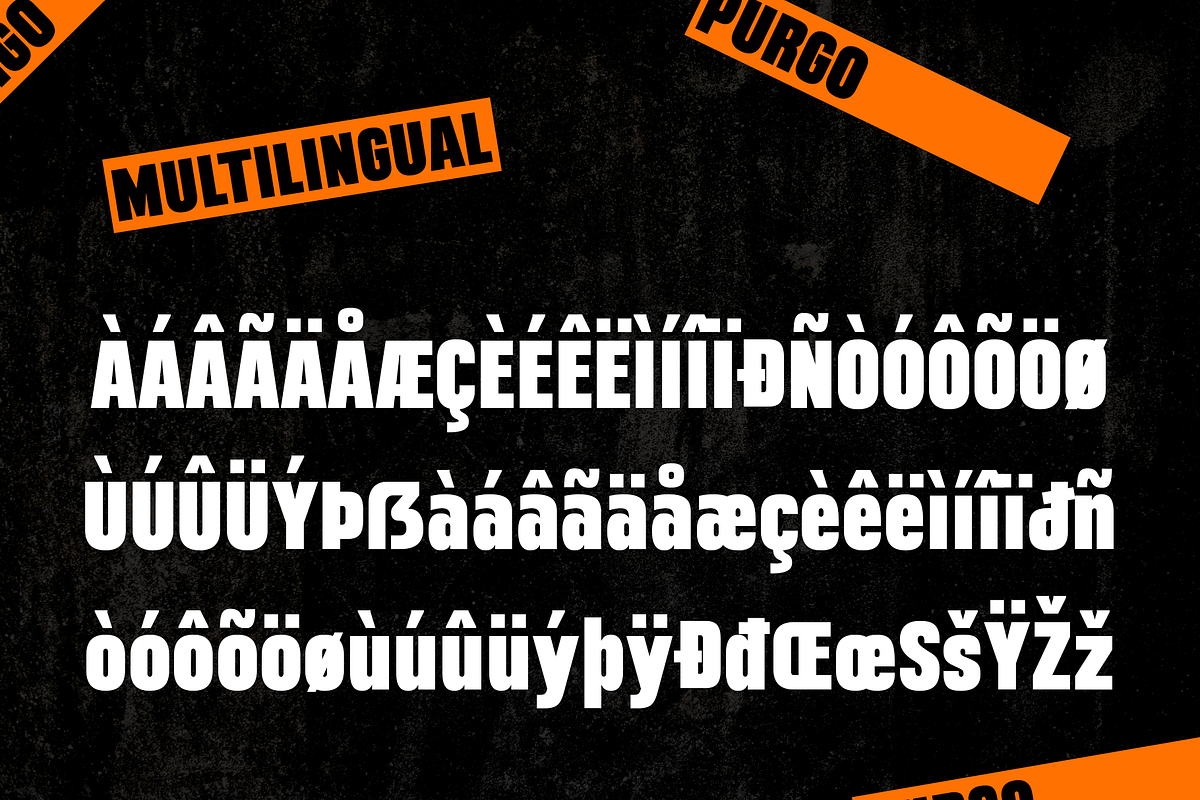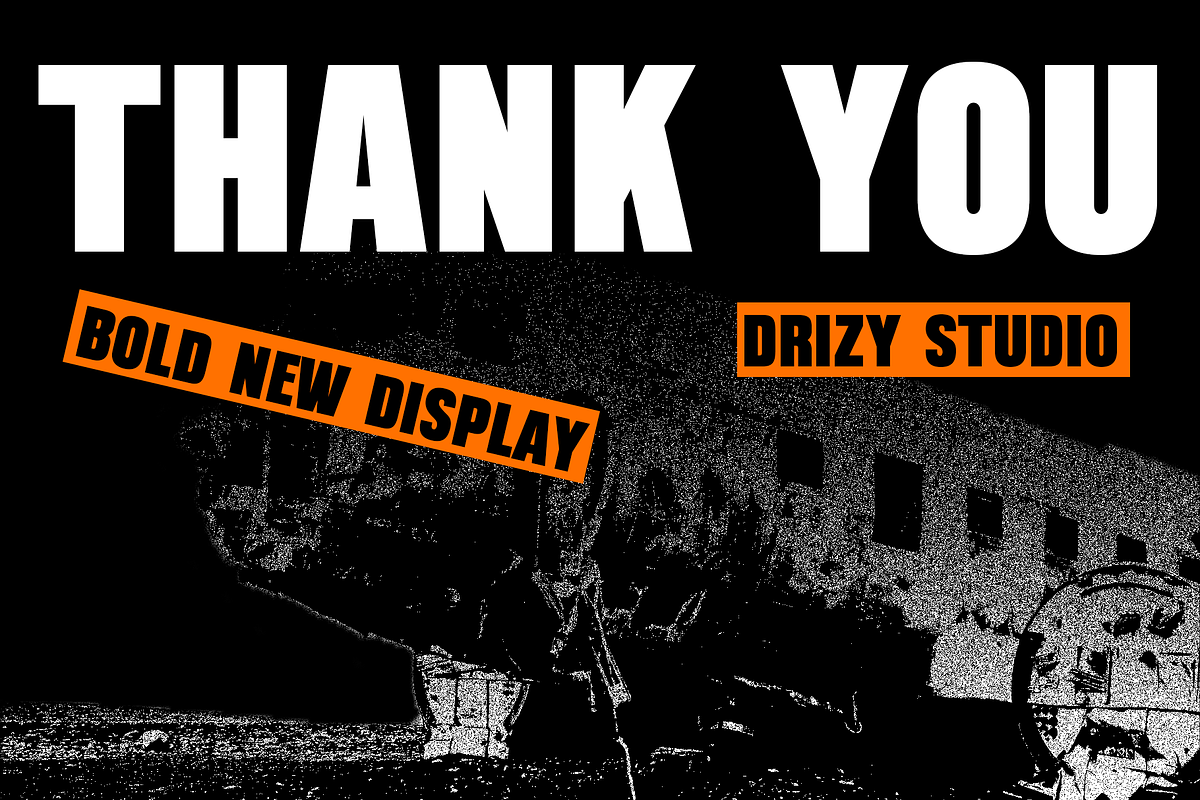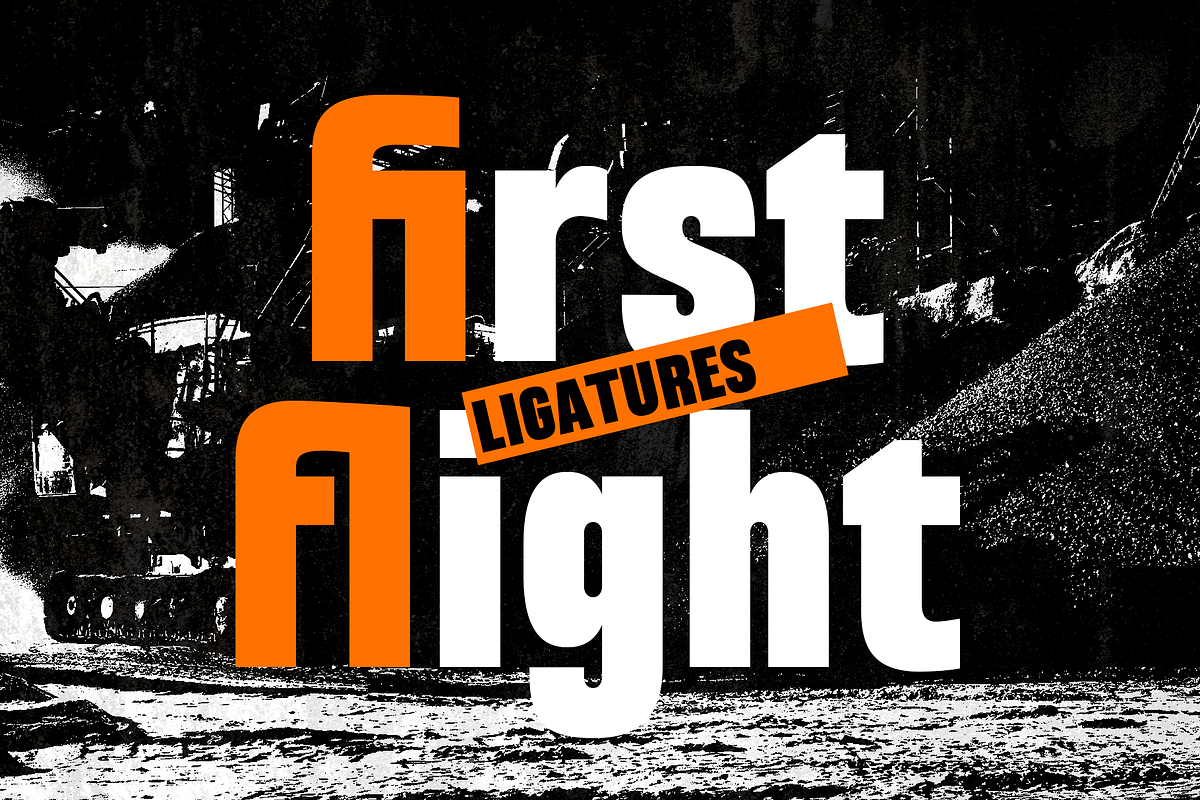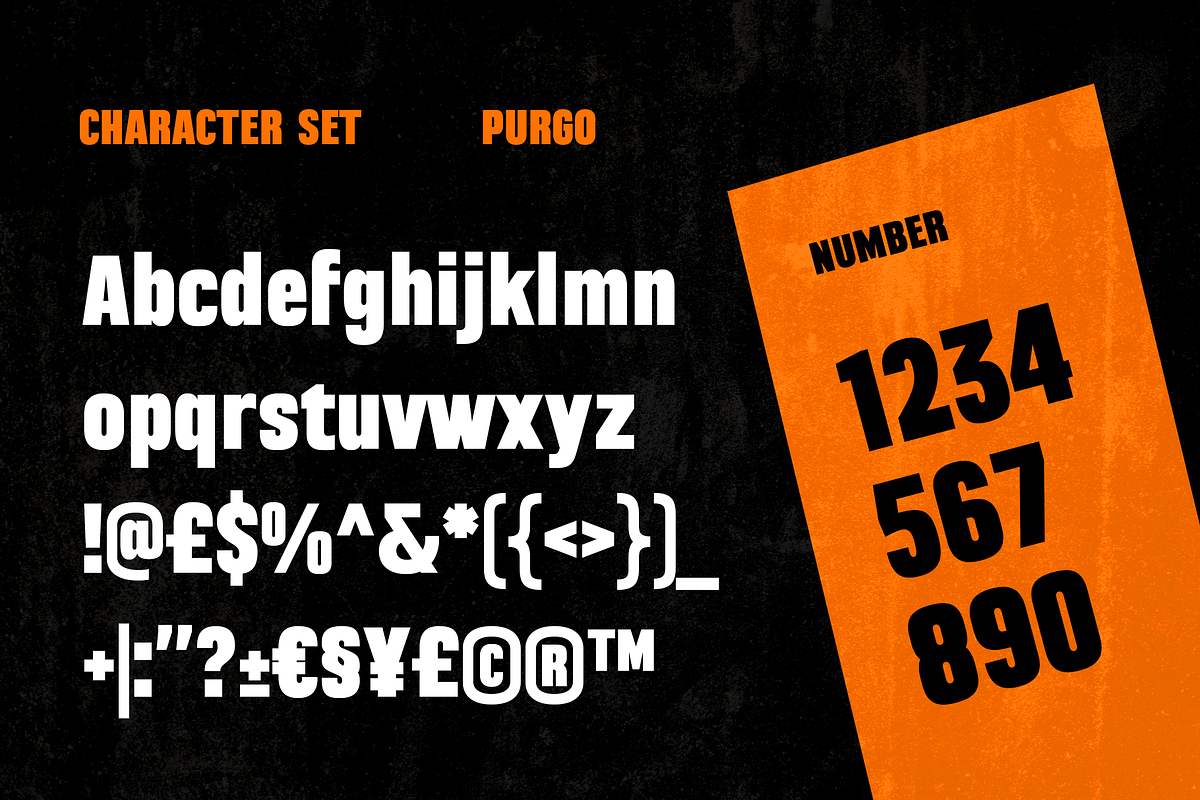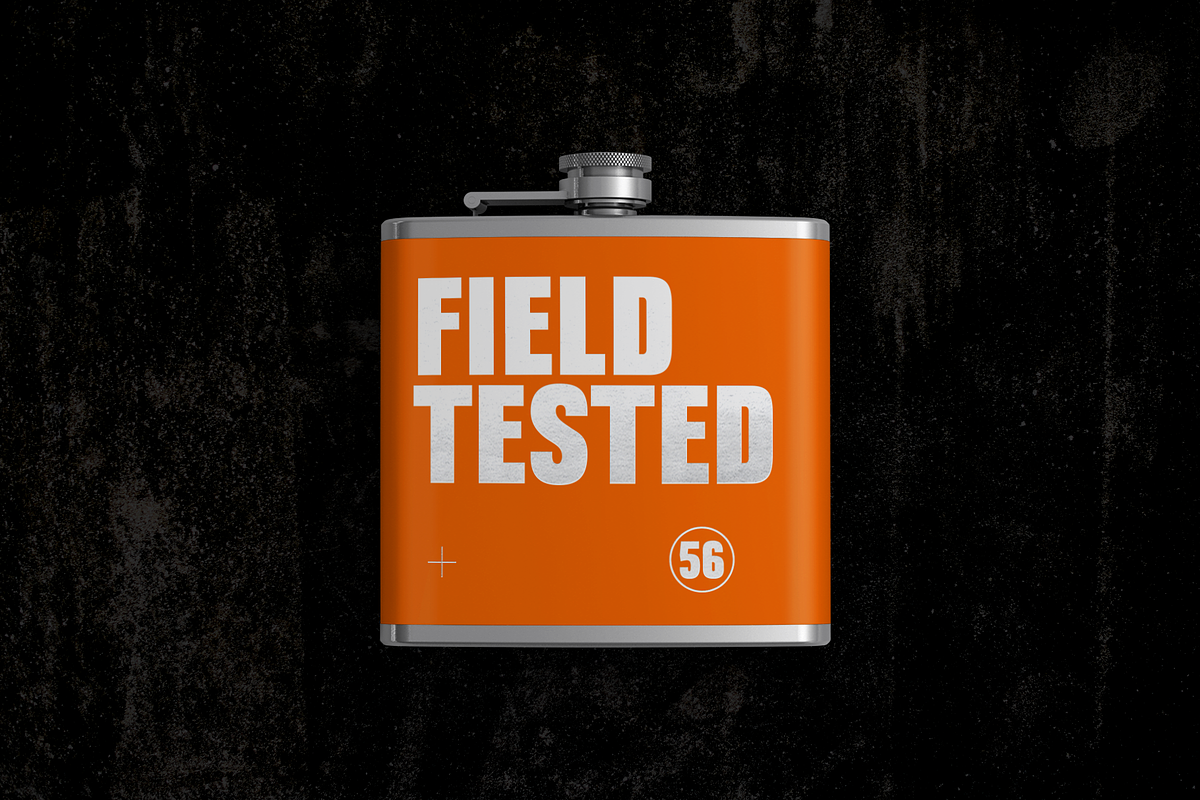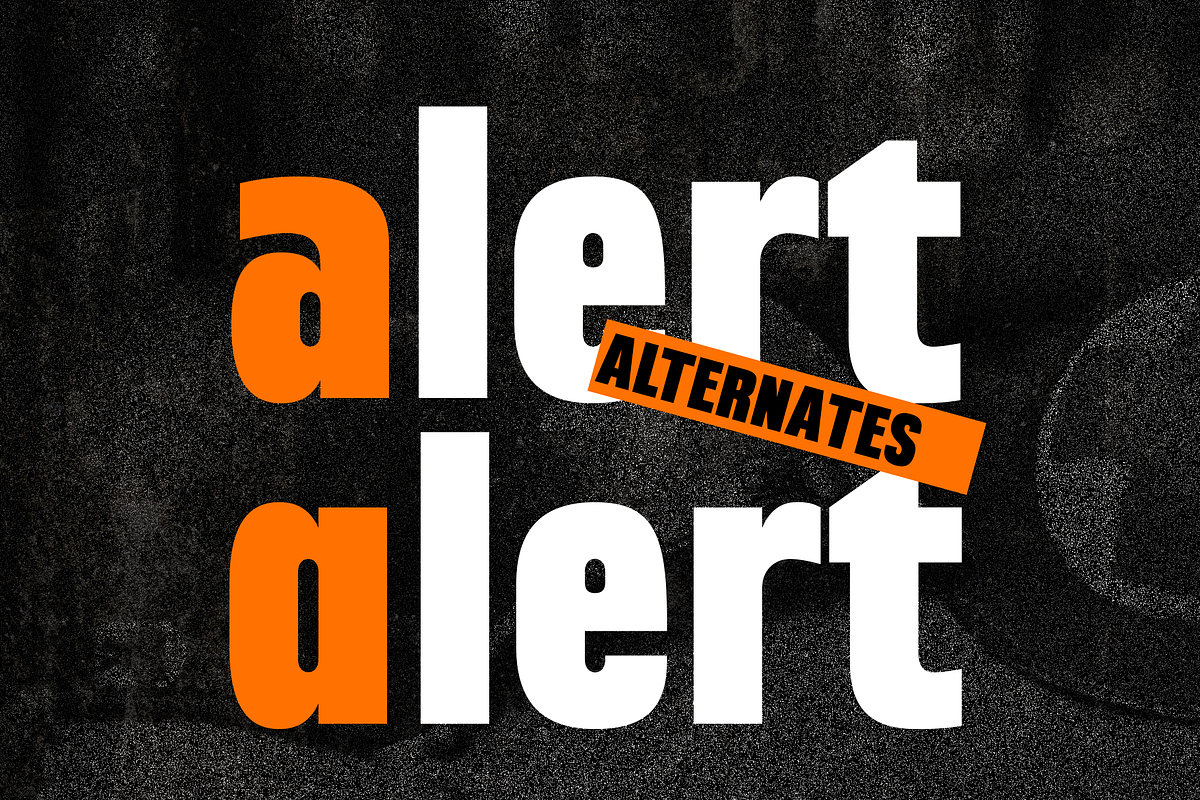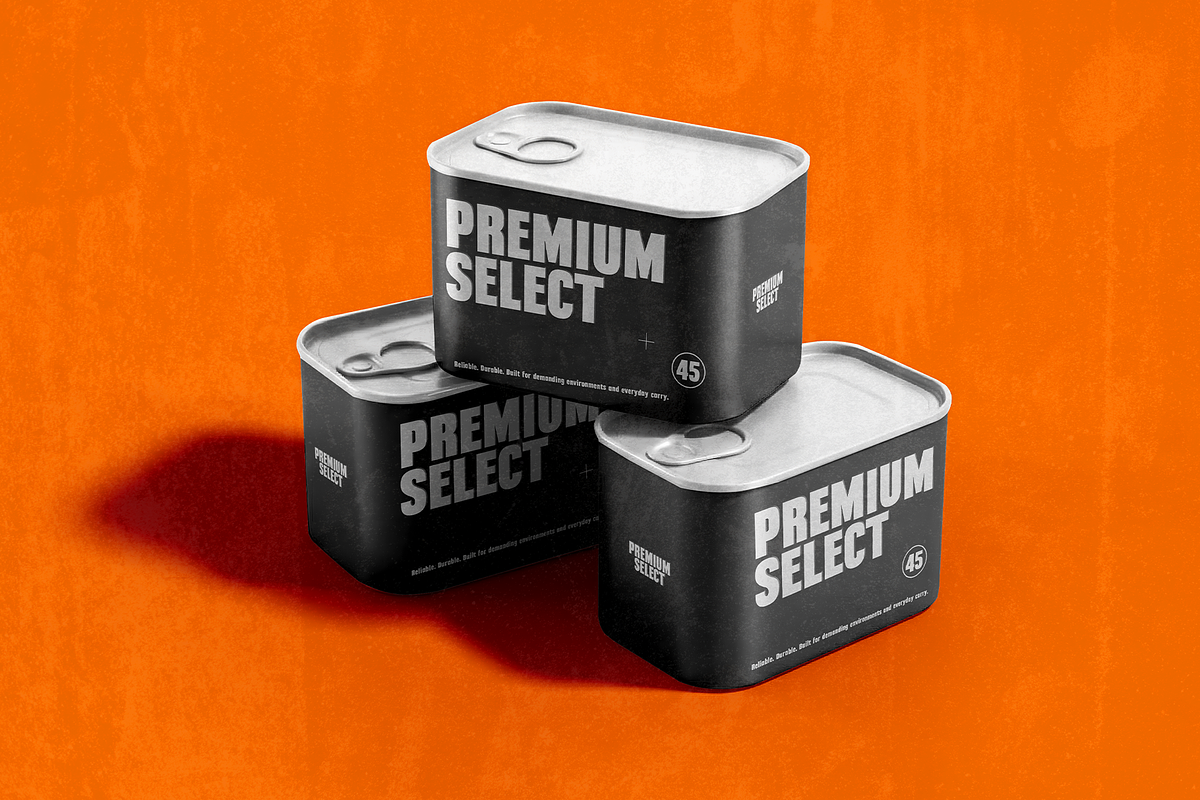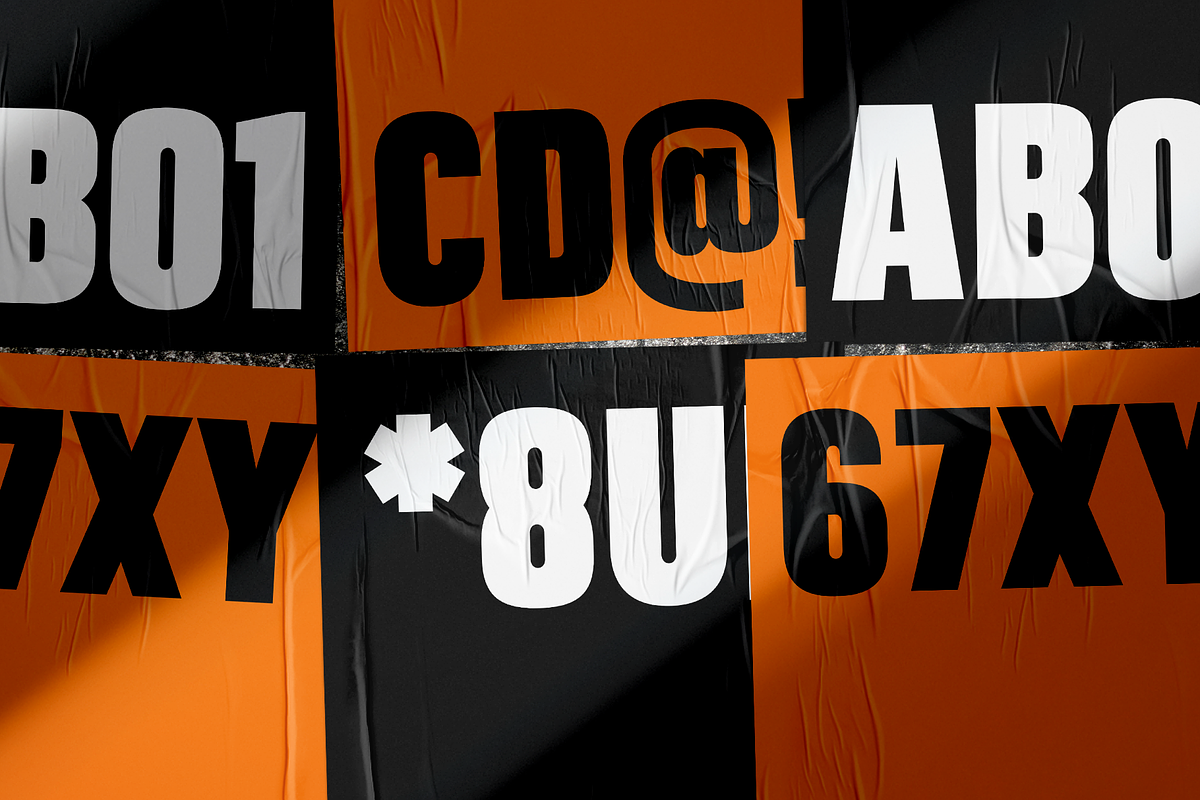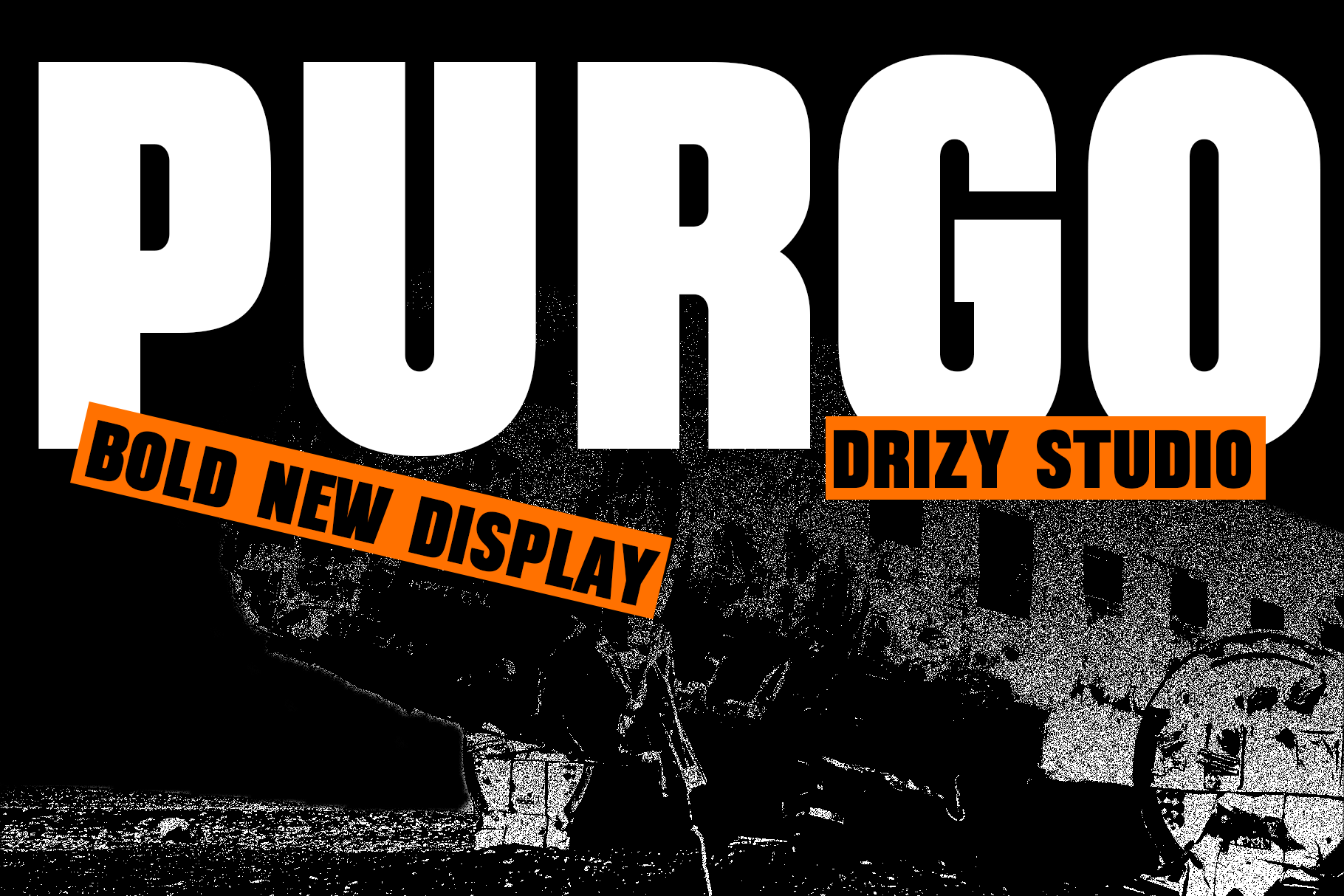
Purgo – Bold New Display Font
Make a bold statement with Purgo, a powerful new display font designed to bring confidence, personality, and modern energy to your designs. With its strong shapes and eye-catching presence, Purgo is perfect for headlines, posters, branding, logos, packaging, editorial designs, social media graphics, and other projects that need a striking visual impact.
Whether you're creating a bold brand identity or a standout campaign, Purgo adds a fresh and distinctive character to every word.
Purgo – Bold New Display Font features:
Character Set
Punctuation & Numbers
Alternate